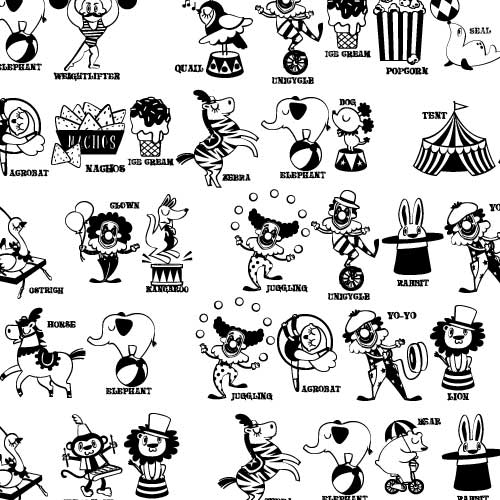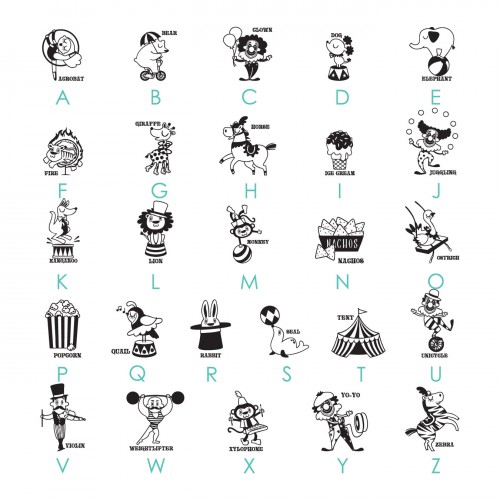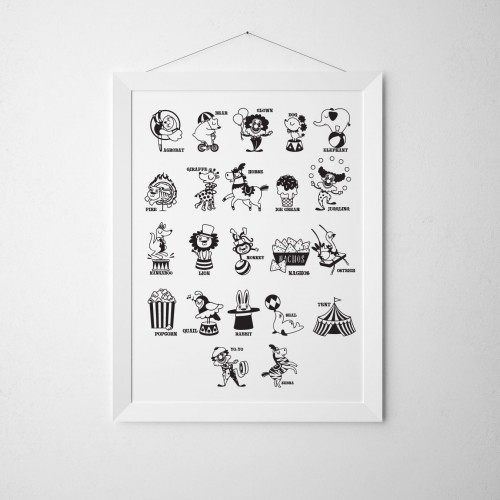
DB Circus A-Z - DB
This adorable doodlebat font features 26 circus characters from A-Z. Perfect for classrooms, school, teachers, parties, gifts, crafts, scrap book pages, planner stickers and more!